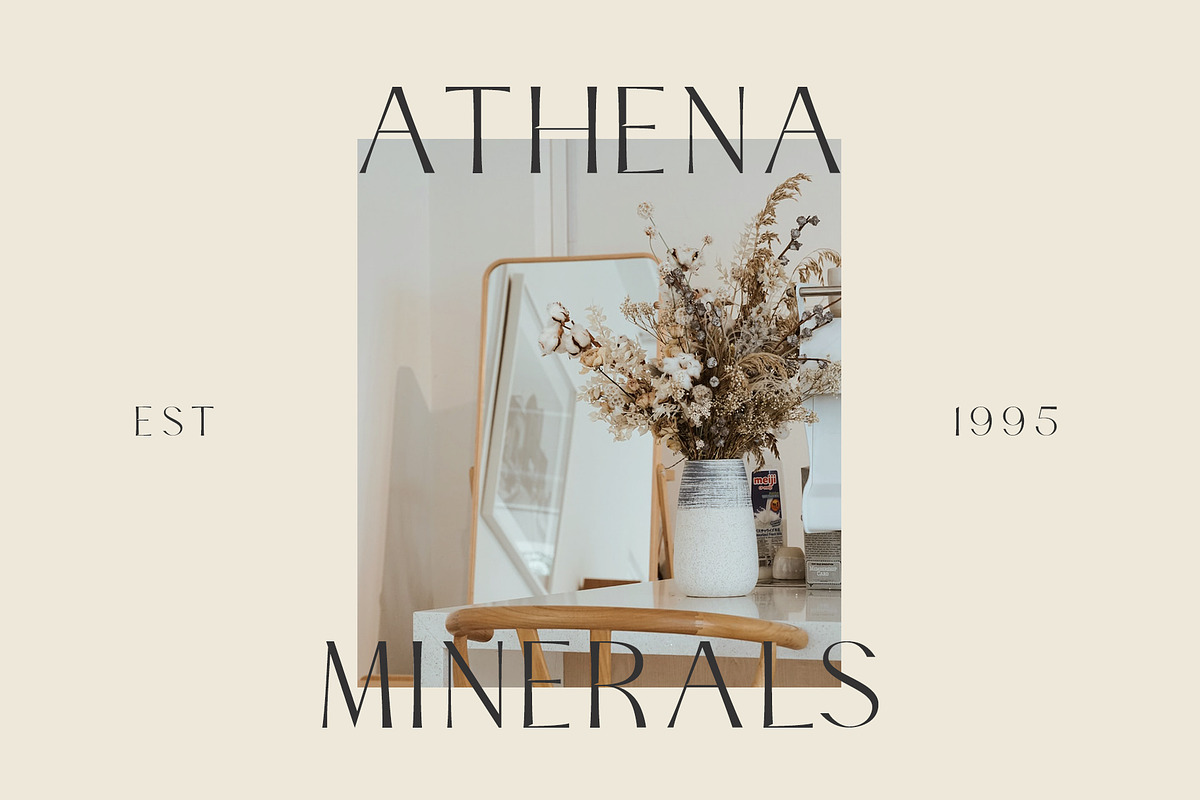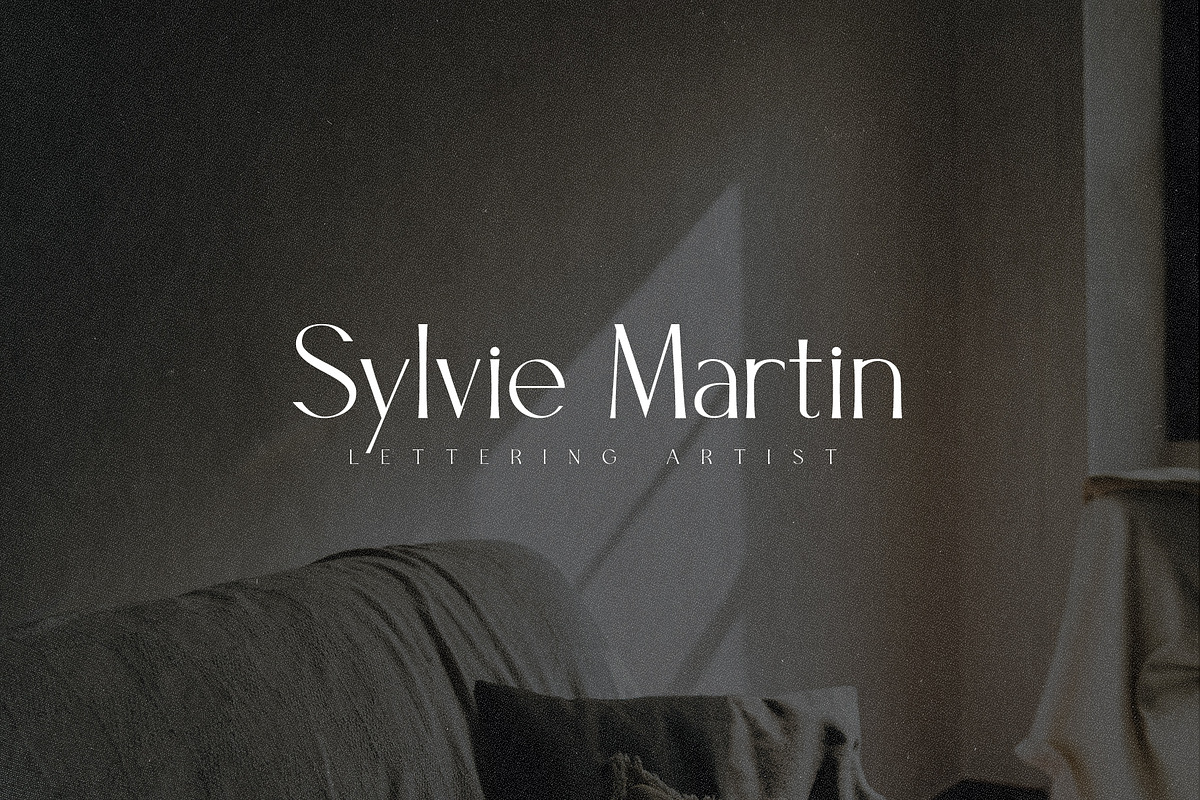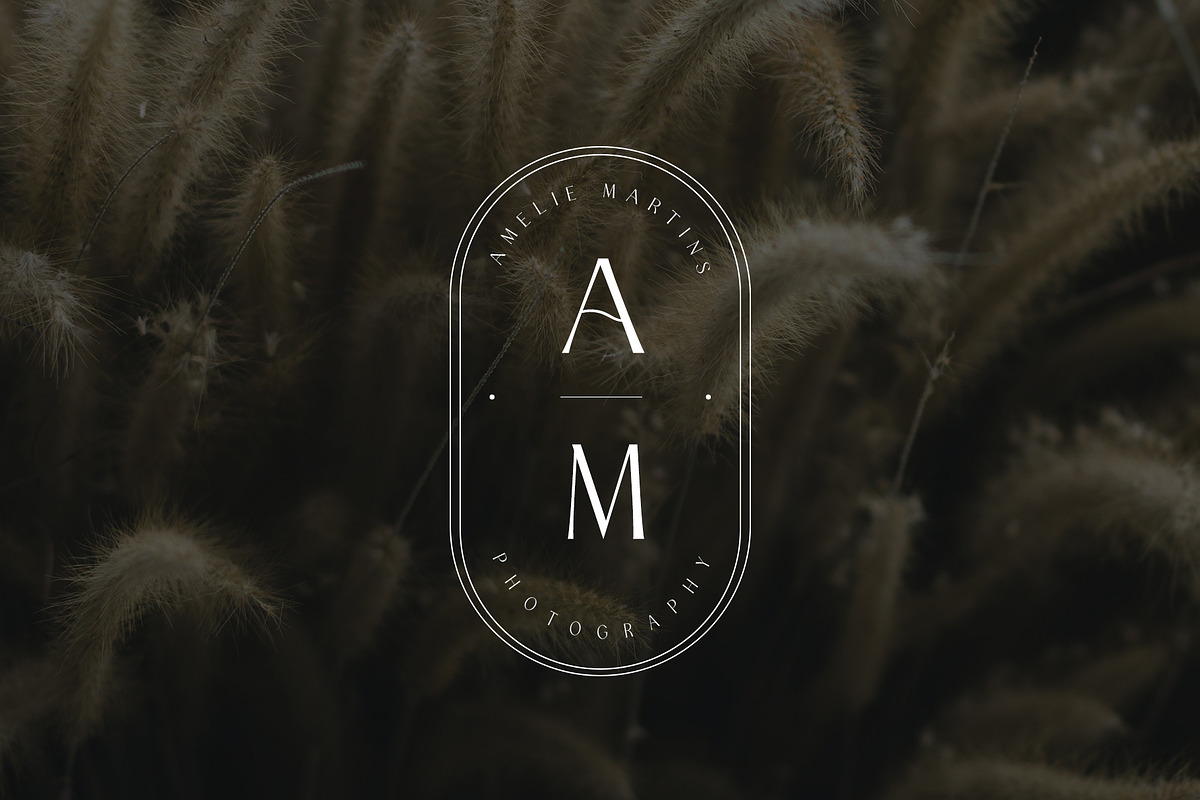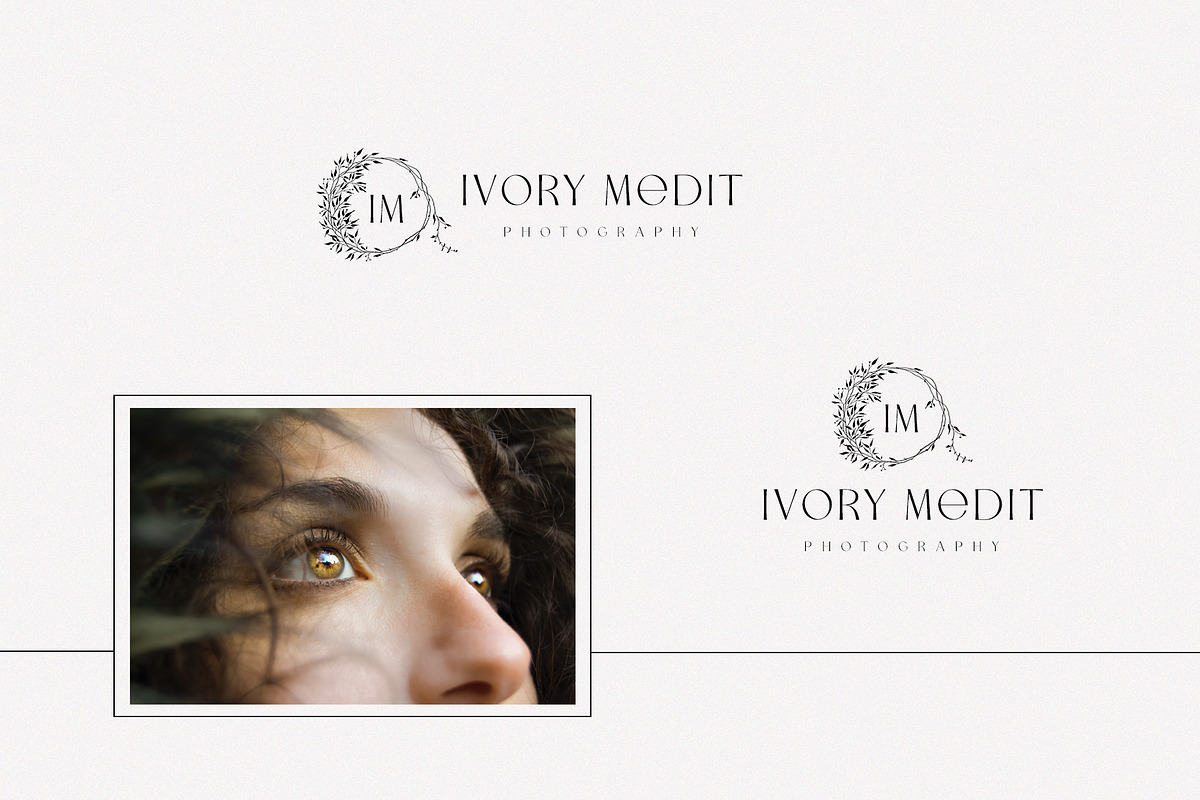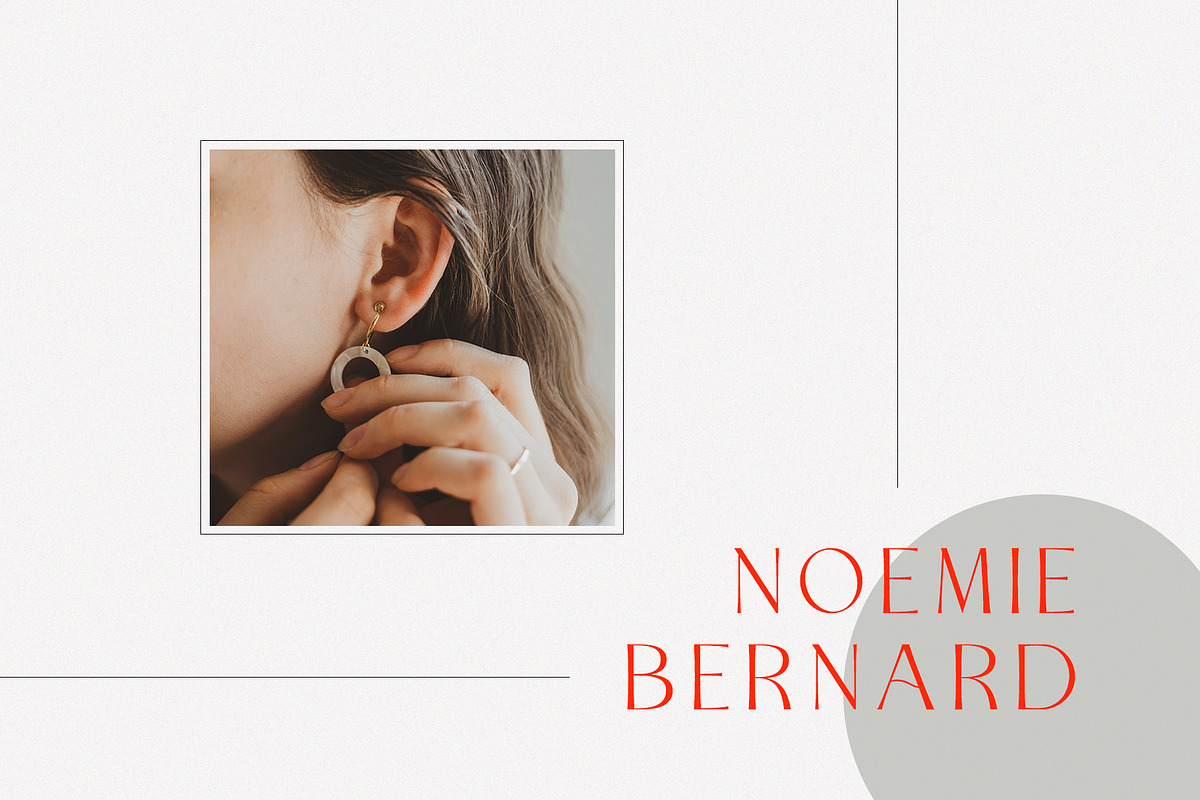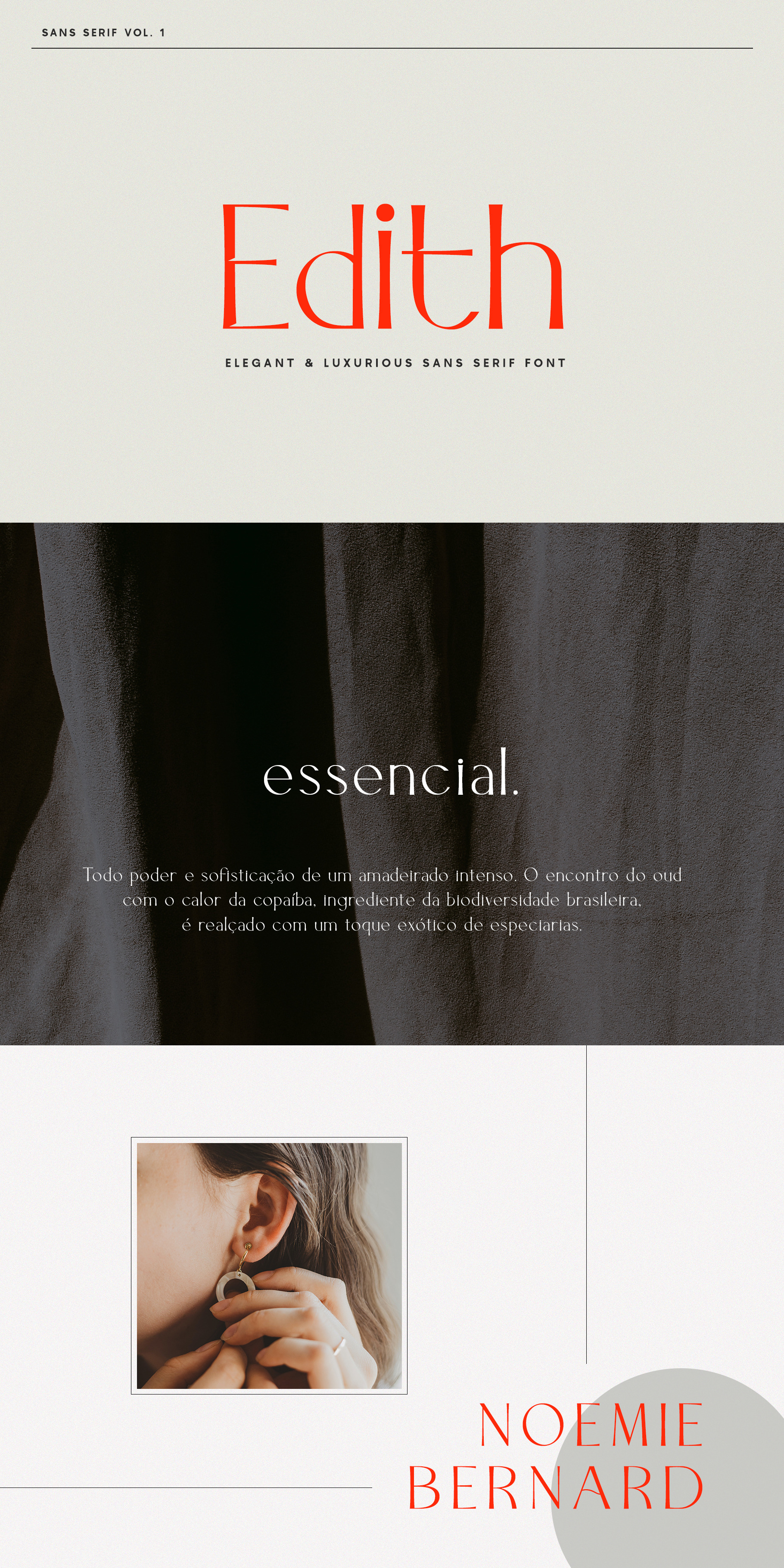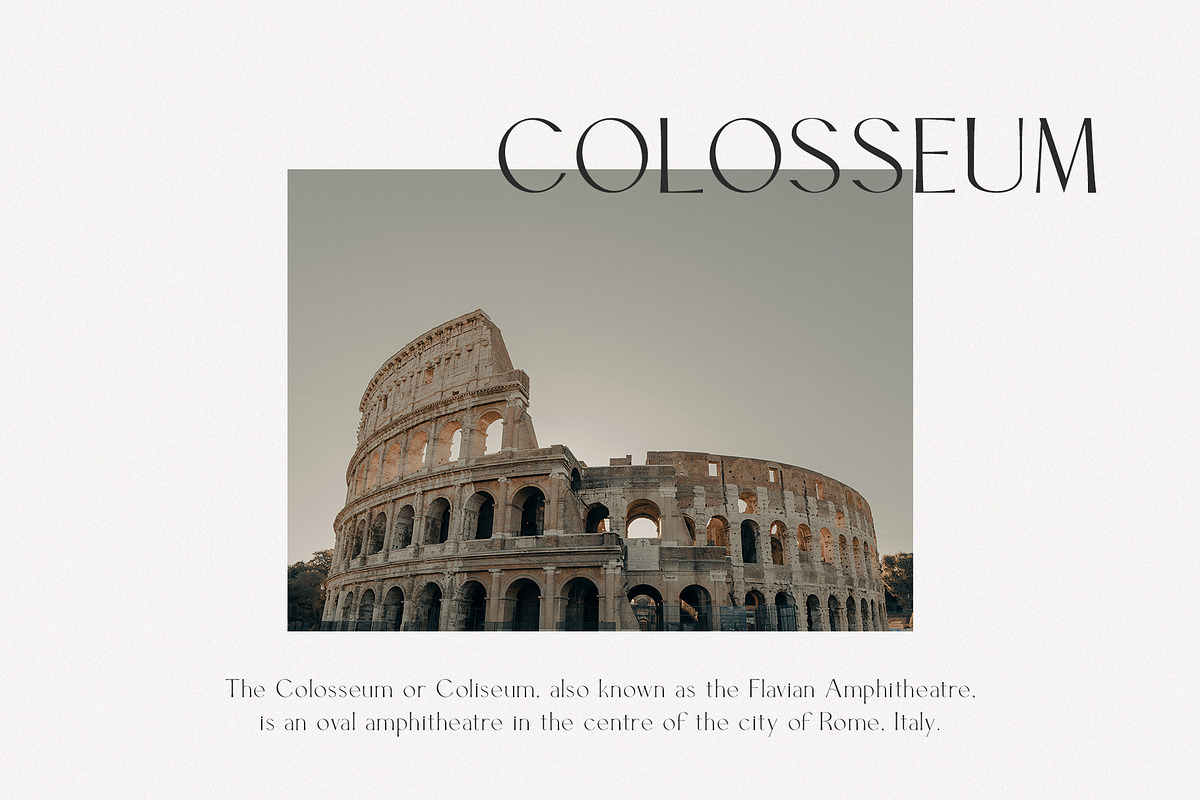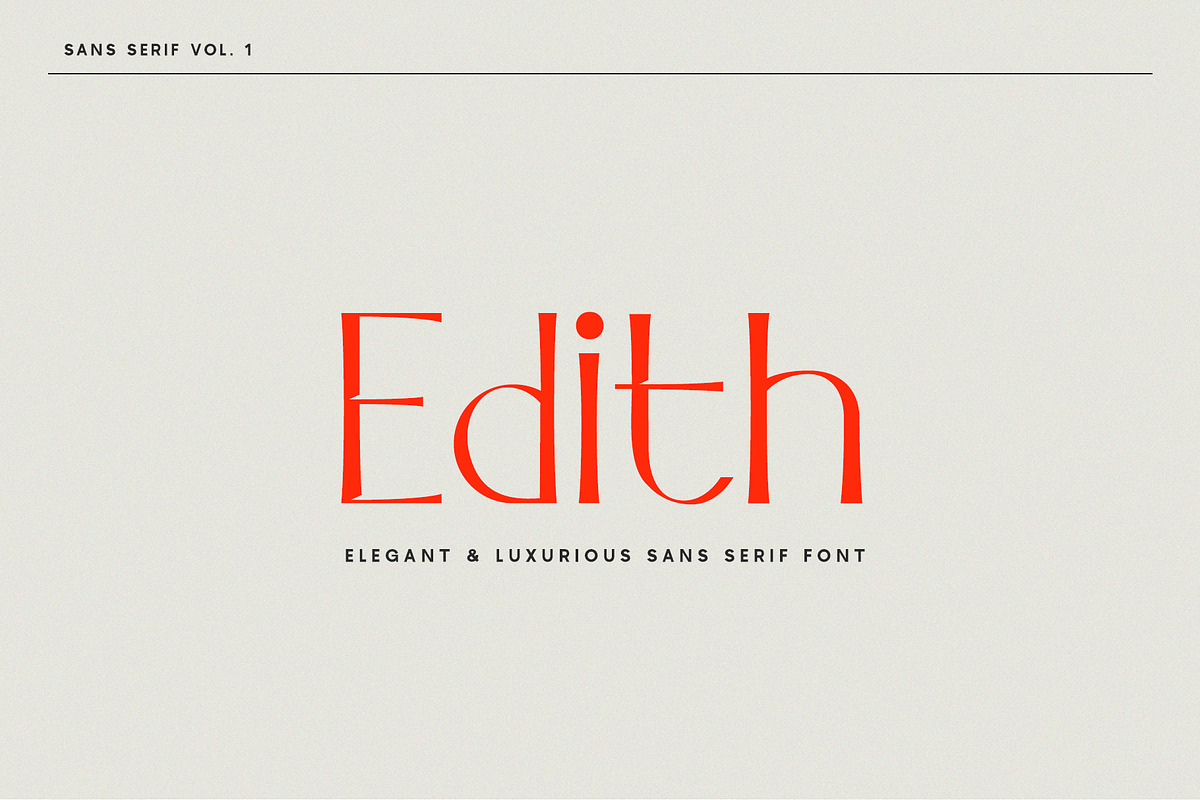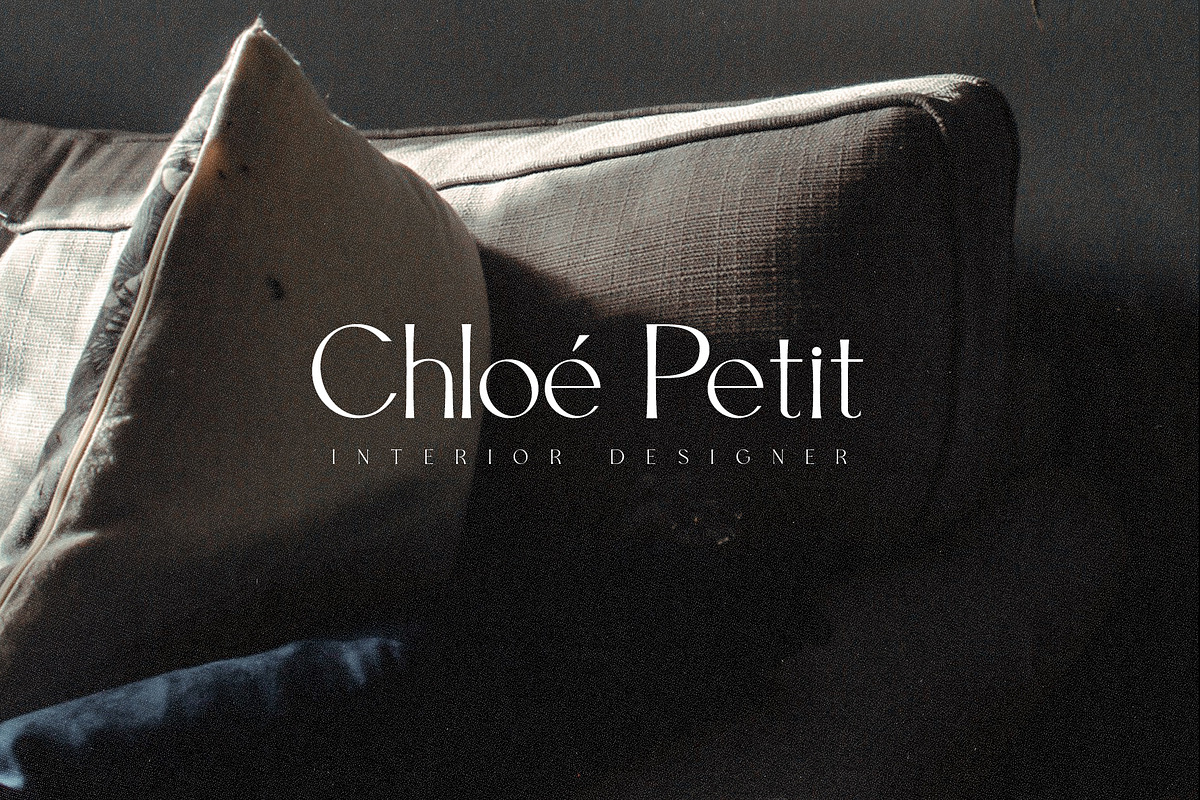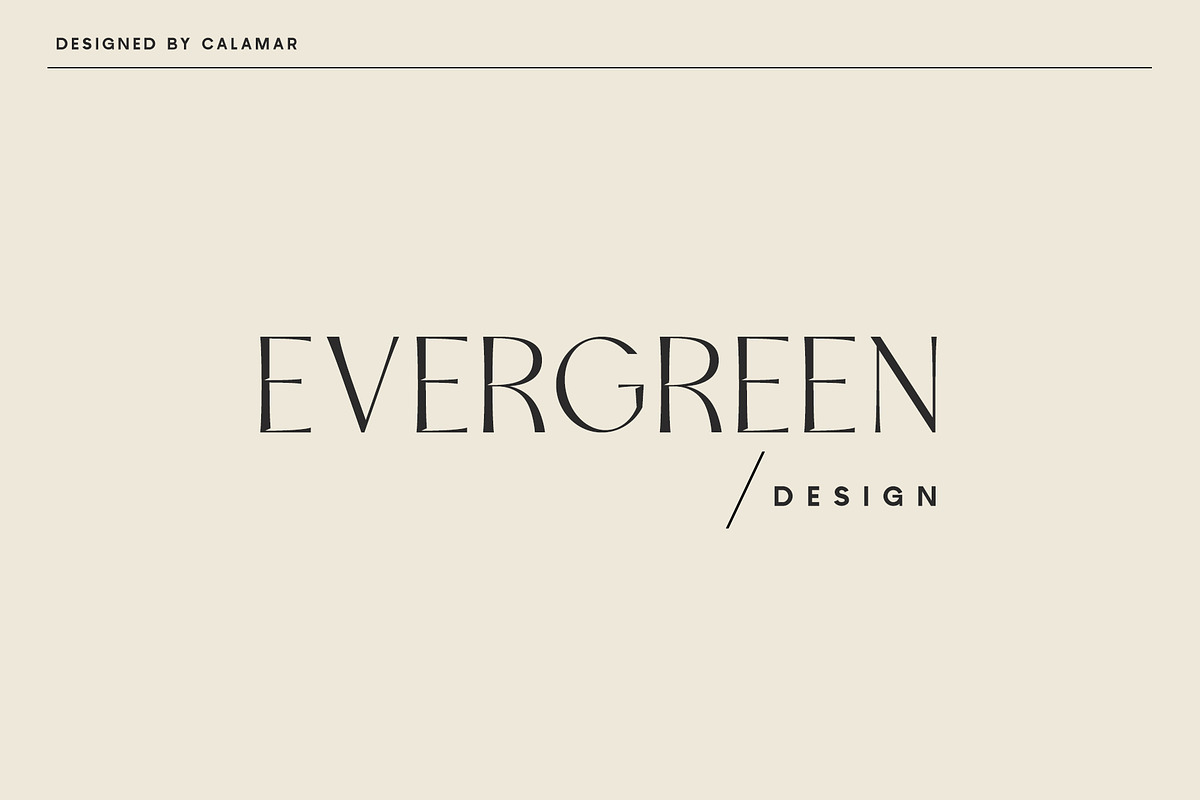
Edith | Sans Serif Font
Edith is the new elegant sans serif font that will bring in your projects a touch of luxury and style. It's perfect match for logotypes, branding, wedding monograms and invitations, blog headlines and much more.